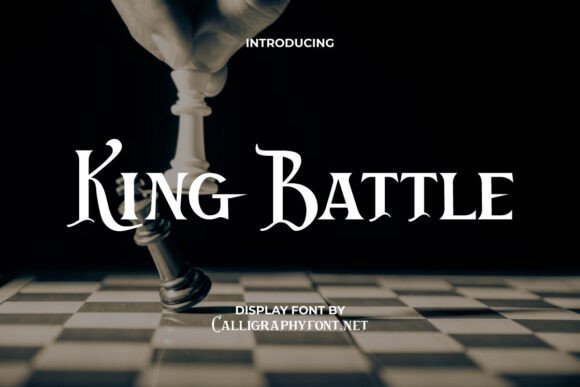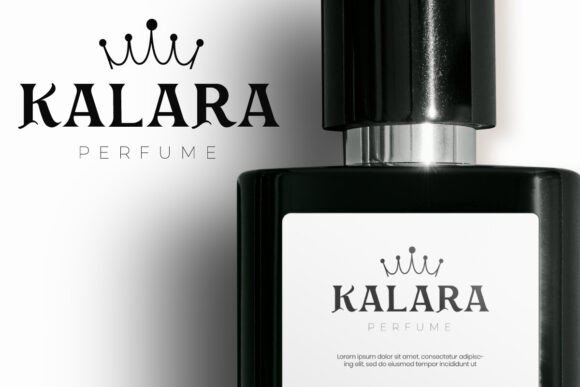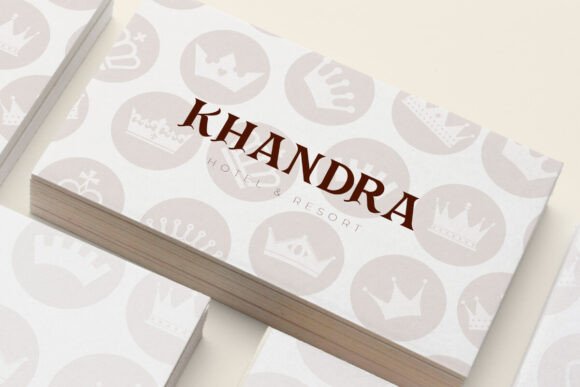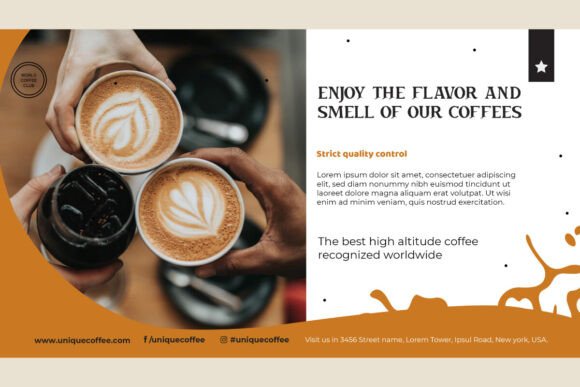
King Battle Font: A Gothic Display Font for Bold Branding & Logo Design
About the King Battle Font
Presenting King Battle Font, a unique and stylish typeface that will make your work stand out. King Battle Font is a classic display typeface inspired by the concept of an ancient kingdom. Drawing influence from gothic design, it modernizes the aesthetic without losing the old-world charm, making it a versatile choice for various industries. Whether it’s accessories, advertising, art, cafés, clothing brands, events or festivals, fashion design, film, furniture, handicrafts, hotels, movies, perfumes, pottery, printing, publishing, restaurants, writing, and more, this font fits seamlessly.
King Battle Font is a striking typeface that stands out on its own or complements other fonts in your creative projects. It’s perfect for billboards, brand logos, brochures, business cards, catalogs, covers, embossed designs, flyers, headers, labels, menus, mockups, packaging, posters, price tags, screen prints, signage, stationery, stickers, titles, watermarks, websites, and much more.
King Battle Font Usage Examples
King Battle Font Example